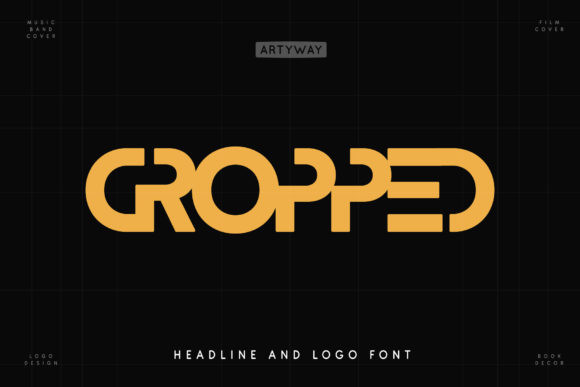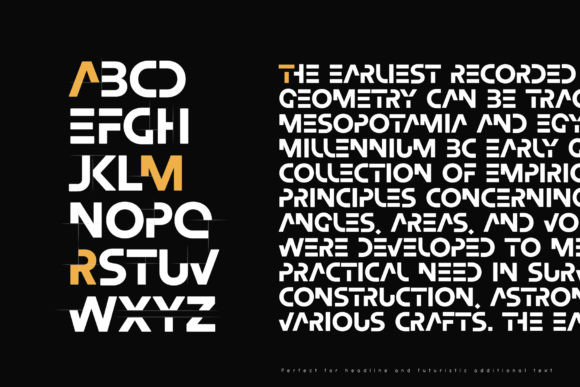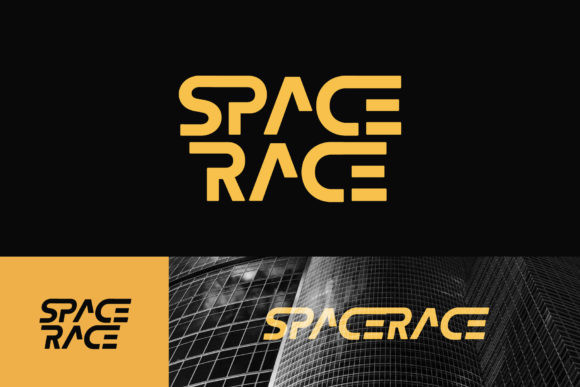
Cropped Font
Cropped FontCropped is a bold, thick lettered and geometrically shaped display font. Add this techno styled font to your web designs, logos or pretty much anything that requires a smart, cool touch.